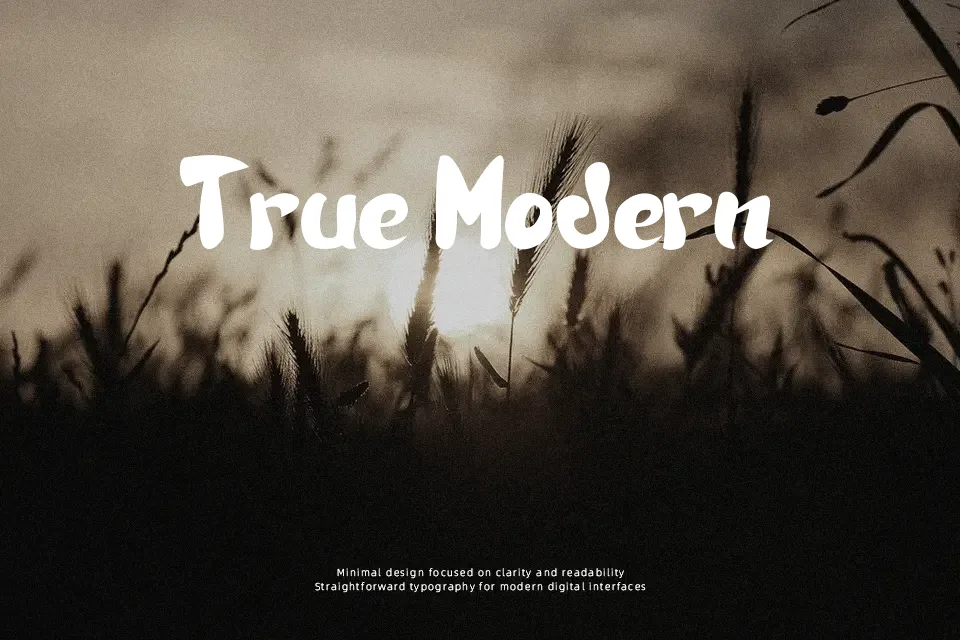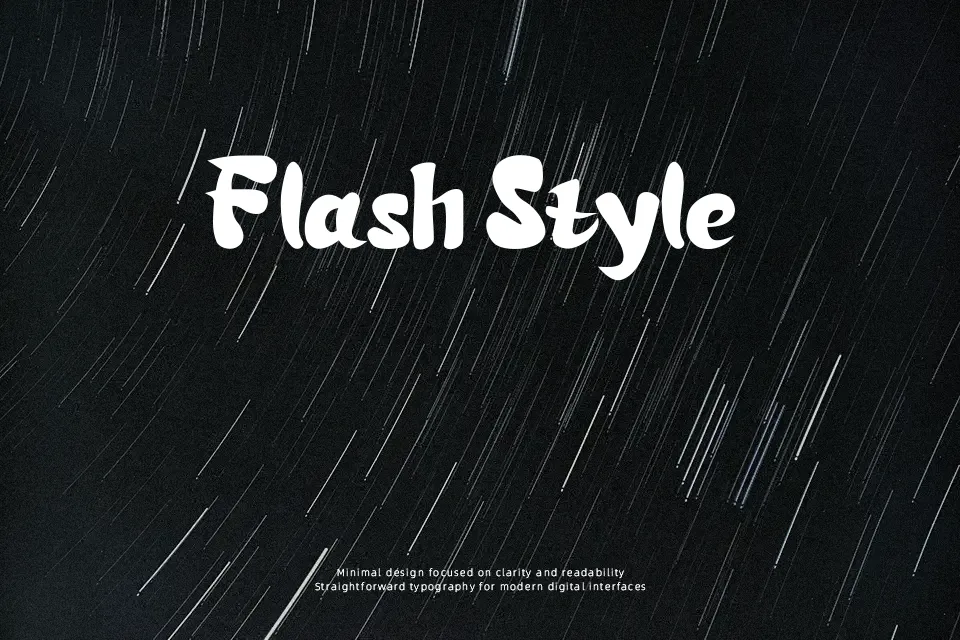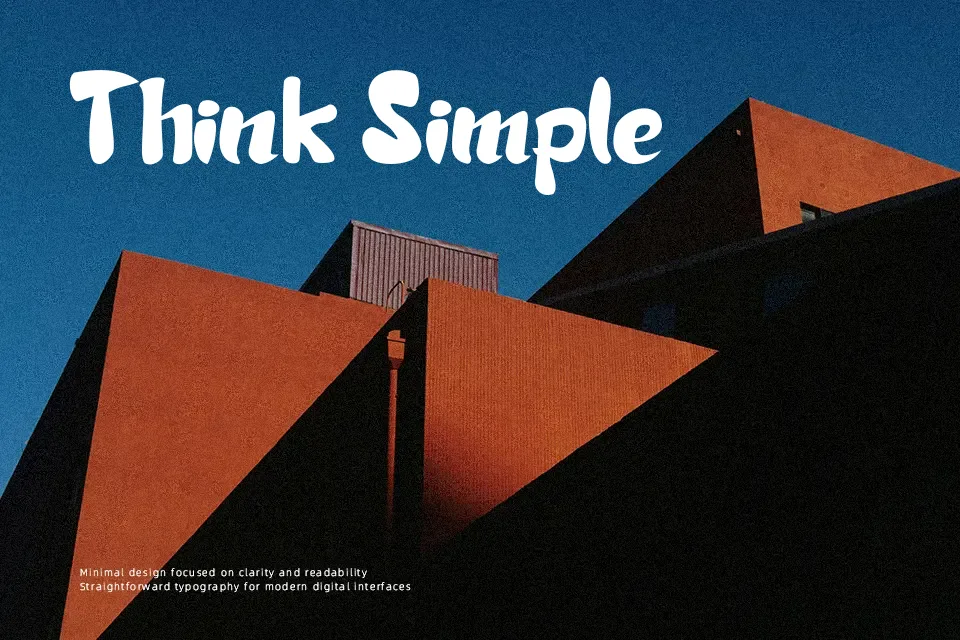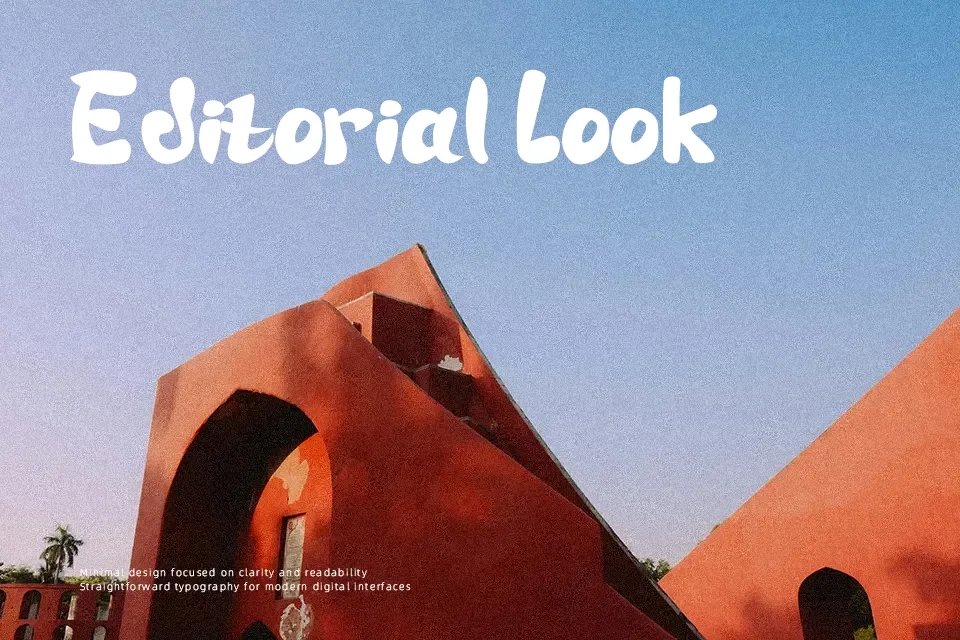
Si Brot! Font
Designed by Khurasan
Si Brot! Font stands out with its hefty brush-drawn strokes, casual baseline rhythm, and plump, rounded character contours. The design features tight letter spacing and low stroke contrast, creating dense, impactful word blocks that immediately catch the eye in large display formats. While the generous weight and lively proportions deliver strong visual presence on comic covers, food packaging, and event banners, the letterforms become cramped and difficult to distinguish when scaled down to smaller sizes. Consequently, the typeface is less suitable for continuous body text or dense editorial layouts where extended reading comfort is paramount.
Best For: children’s book covers, snack food packaging, cartoon posters, casual restaurant menus
Not Ideal For: continuous body text, corporate annual reports, small user interface captions, legal documents
Perfect for headline, kids, and logo, with a bold and brush style.